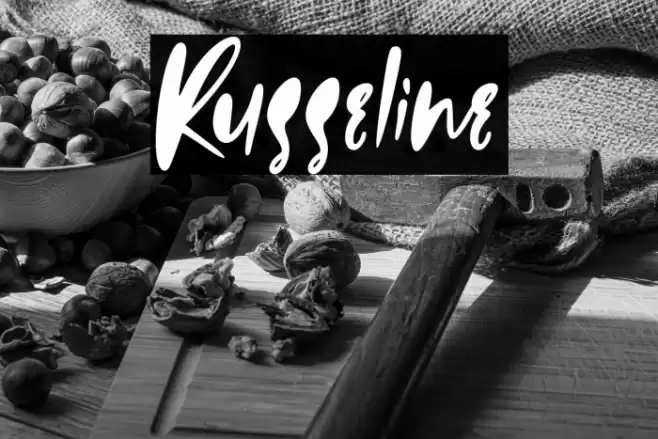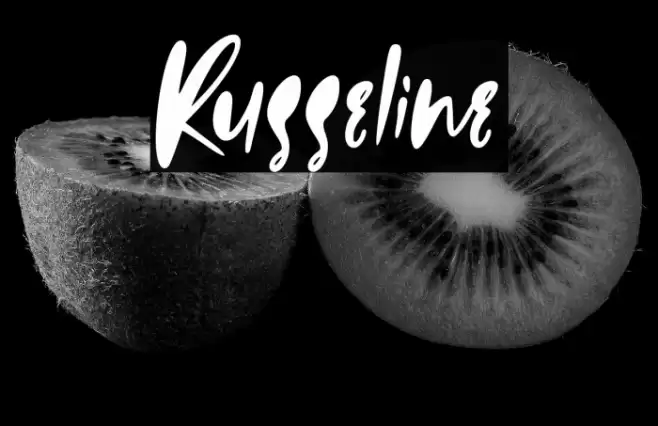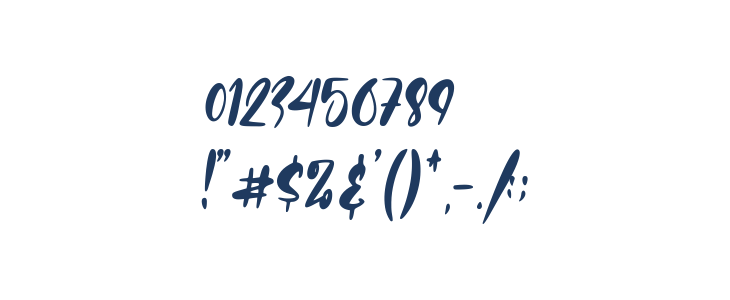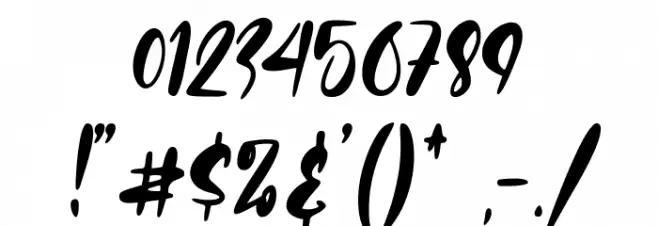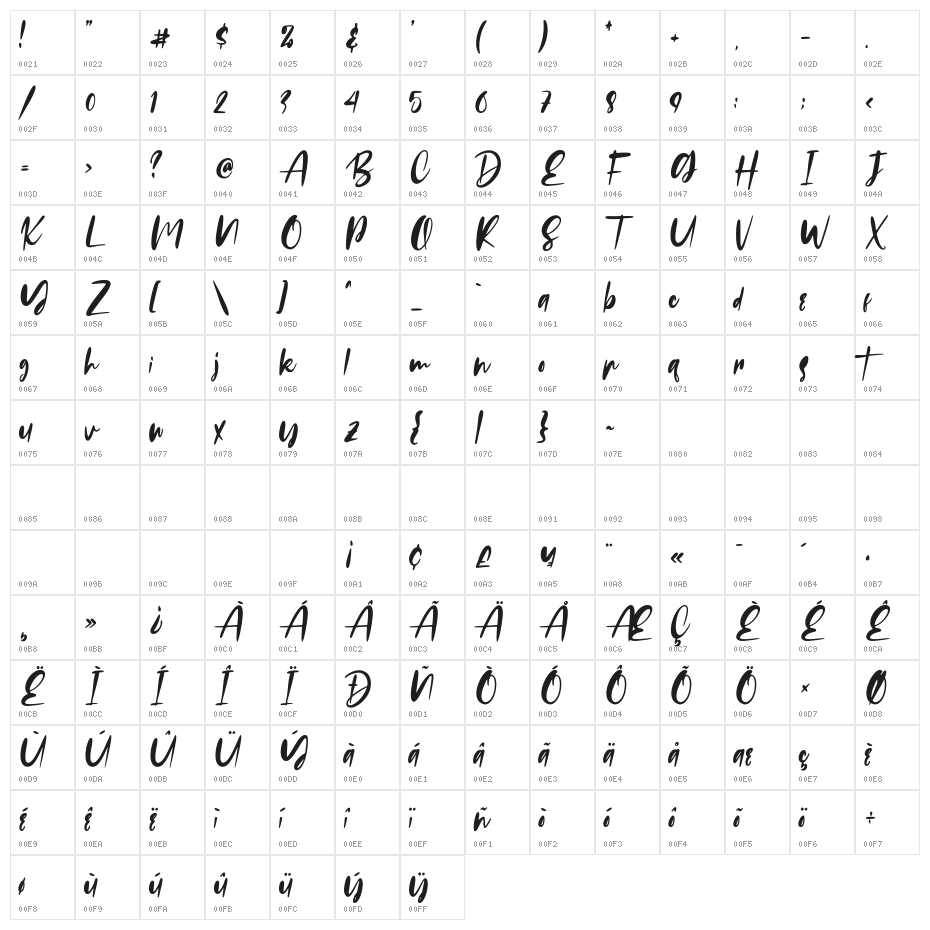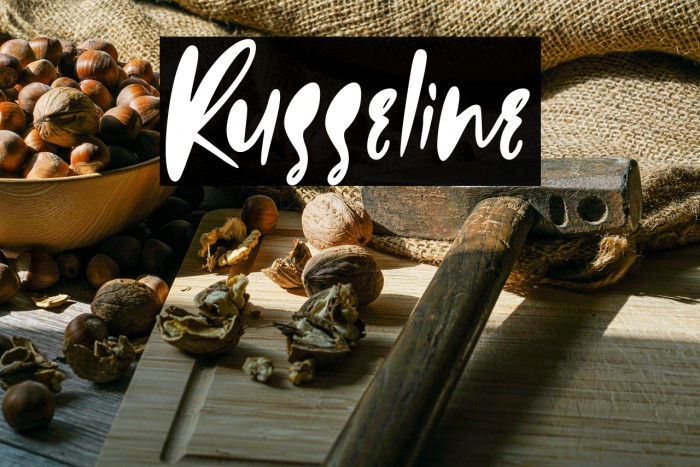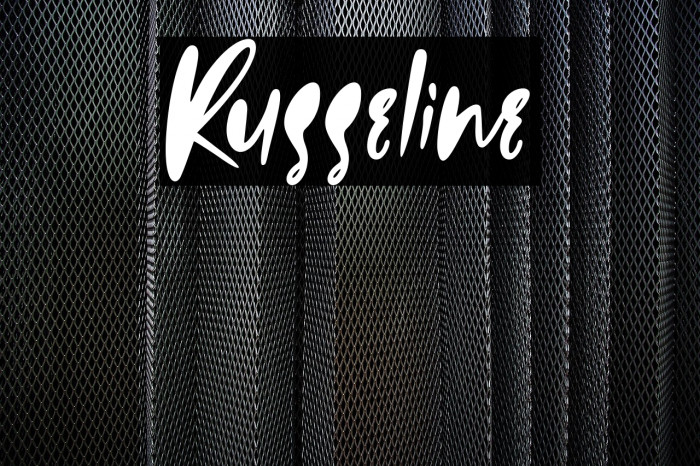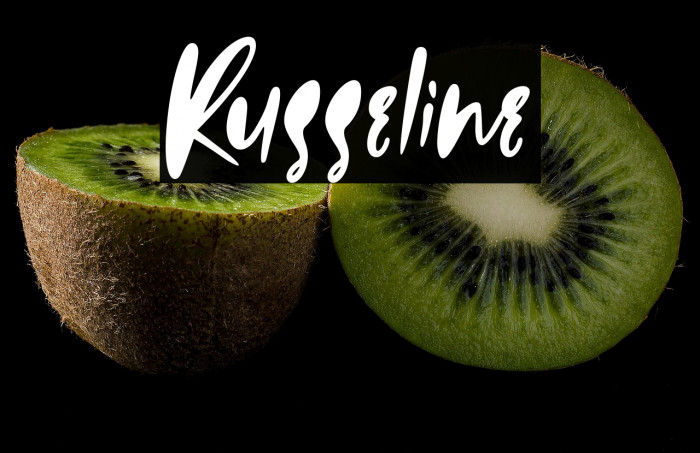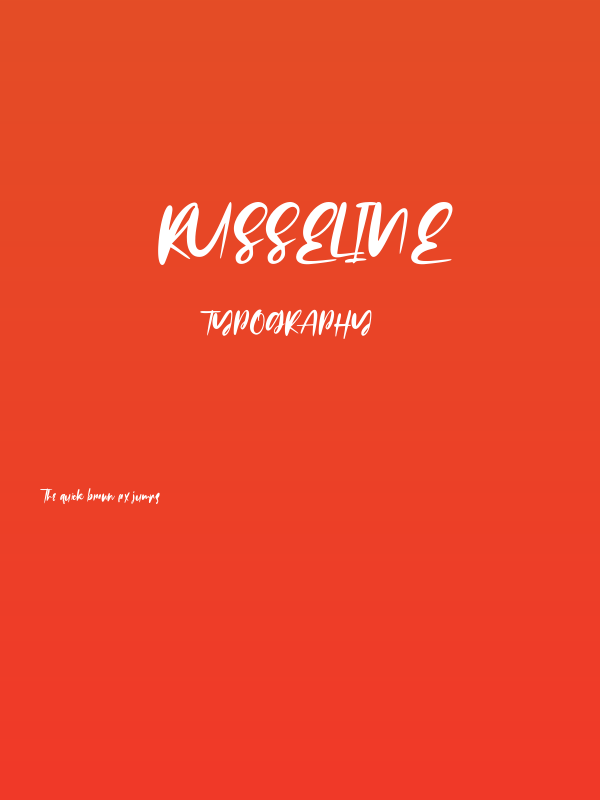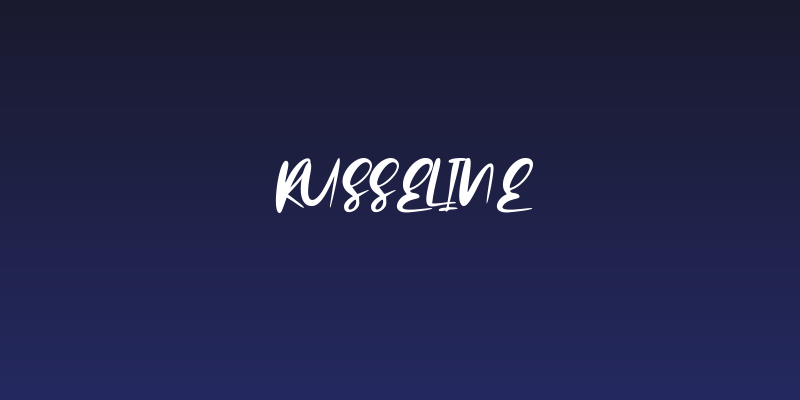
Russeline Font
Russeline Description
This font exudes a lively and energetic vibe with its bold, sweeping strokes and fluid, cursive style. The uppercase letters are characterized by their dramatic flourishes and varying line thickness, creating a sense of movement and dynamism. The lowercase letters maintain the same fluidity, with some characters featuring unique loops and swashes that add to the overall playful aesthetic. Numbers and special characters are equally expressive, maintaining the font's consistent style. The font's handwritten appearance makes it ideal for projects that require a personal touch, such as invitations, greeting cards, or branding materials that aim to convey creativity and warmth.
A bold, cursive font with dynamic strokes and a lively, handwritten style from Uncategorized fonts.